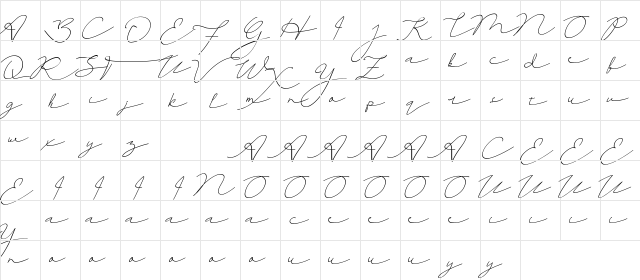
Thipanydemo Regular
| Foundry | Edric Studio |
| Designer | Saila nurissalma |
Design Context for Thipanydemo Typeface
Thipanydemo is a composed and adaptable typeface that performs quietly and consistently across a wide range of design contexts.